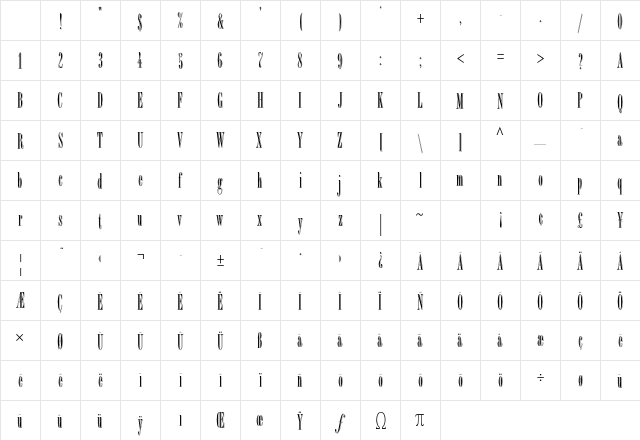
Complete Bordeaux Display Std Regular glyph index. Displaying only characters natively supported by Bordeaux Display Std Regular font.
Bordeaux Display Std is built around its visual character rather than neutral utility - its distinctive forms are designed to make an impression at display sizes.
Font Pairing: Pair with a clean neutral sans-serif for body copy to let Bordeaux Display Std's character lead without overwhelming the composition.
Pro Tip: Use Bordeaux Display Std exclusively at display sizes - it was designed to be seen, not read at length. Let a neutral companion handle body copy.